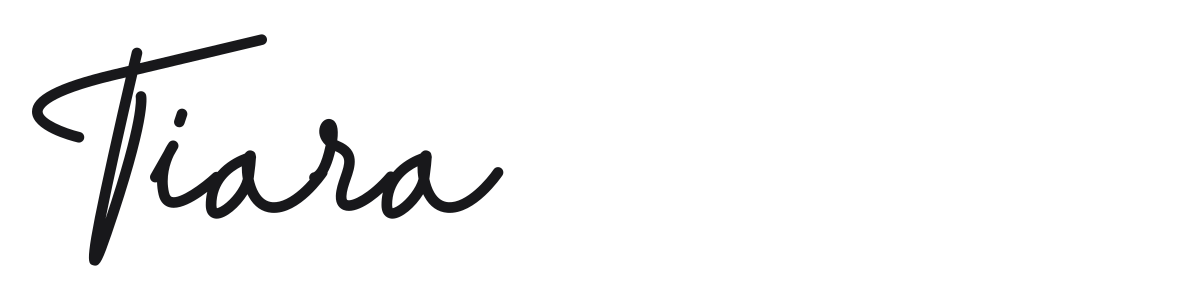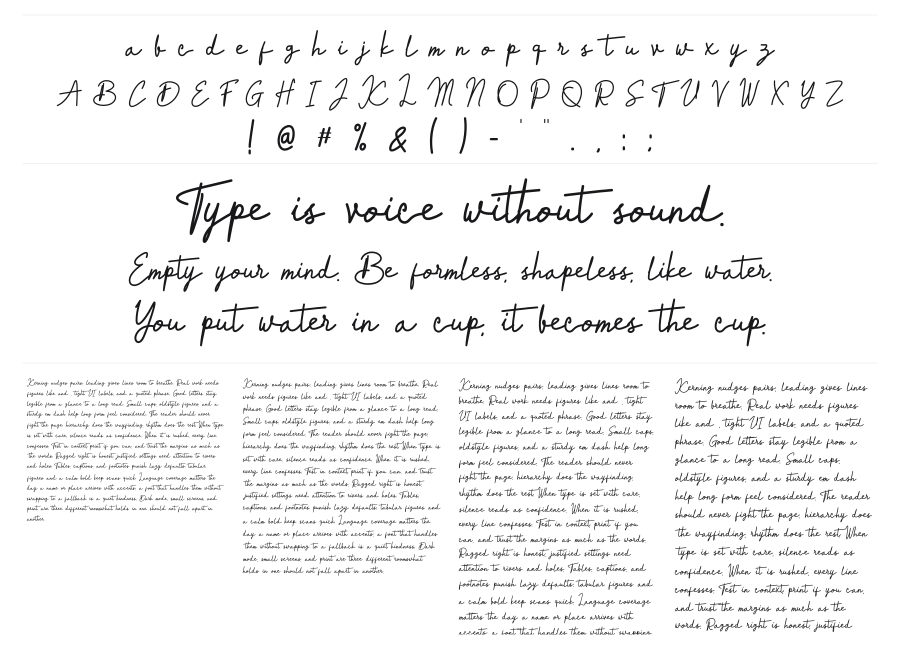
Tiara
Tiara is a contemporary casual script with roots in calligraphy, softened into something relaxed and approachable. The flowing connected strokes and sweeping ascenders give it a signature-like quality without feeling stiff or formal. It sits comfortably on wedding invitations, product packaging, and anywhere a handwritten touch needs to feel polished.